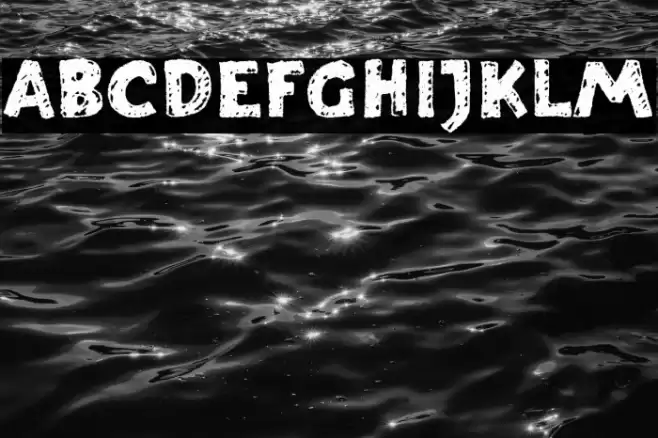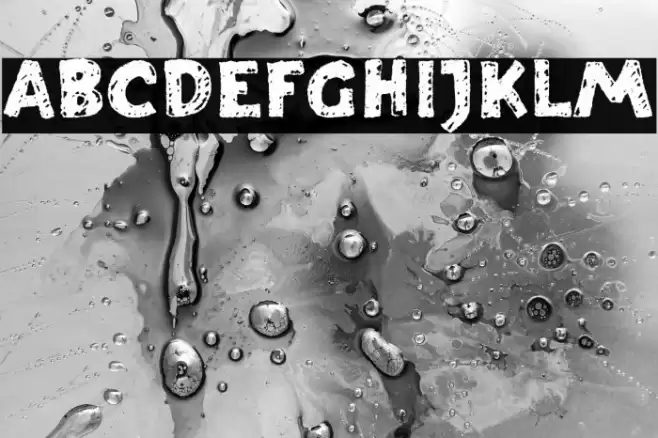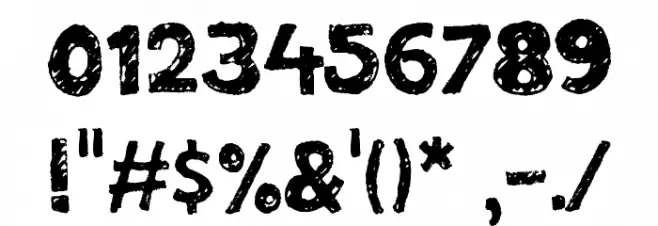
Freaky Witches Font
Freaky Witches Description
This font features a bold, textured appearance with a distressed, grunge-like style. Each character is filled with a pattern that resembles scratches or worn-out surfaces, giving it a unique and edgy look. The uppercase and lowercase letters maintain a consistent style, with rounded edges and a slightly uneven baseline, adding to its hand-crafted feel. The numbers and special characters follow the same design, ensuring a cohesive look across all elements. This font is perfect for projects that require a bold statement with a touch of ruggedness.
A bold, textured font with a distressed, grunge-like style from Halloween fonts.
- Font: Freaky Witches
- Proposed Projects: Ideal for Halloween-themed designs, posters, album covers, or any project needing a bold, edgy aesthetic.
- Use Case: Headlines, Posters, Themed Events